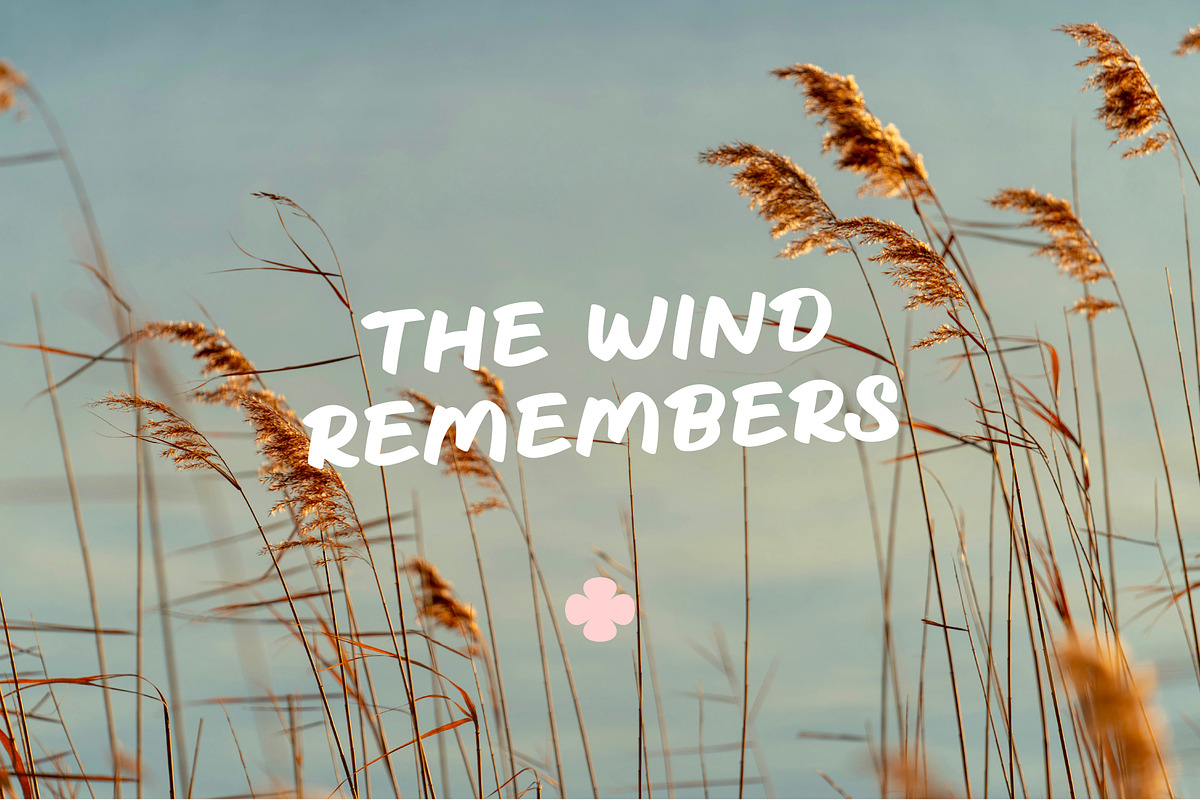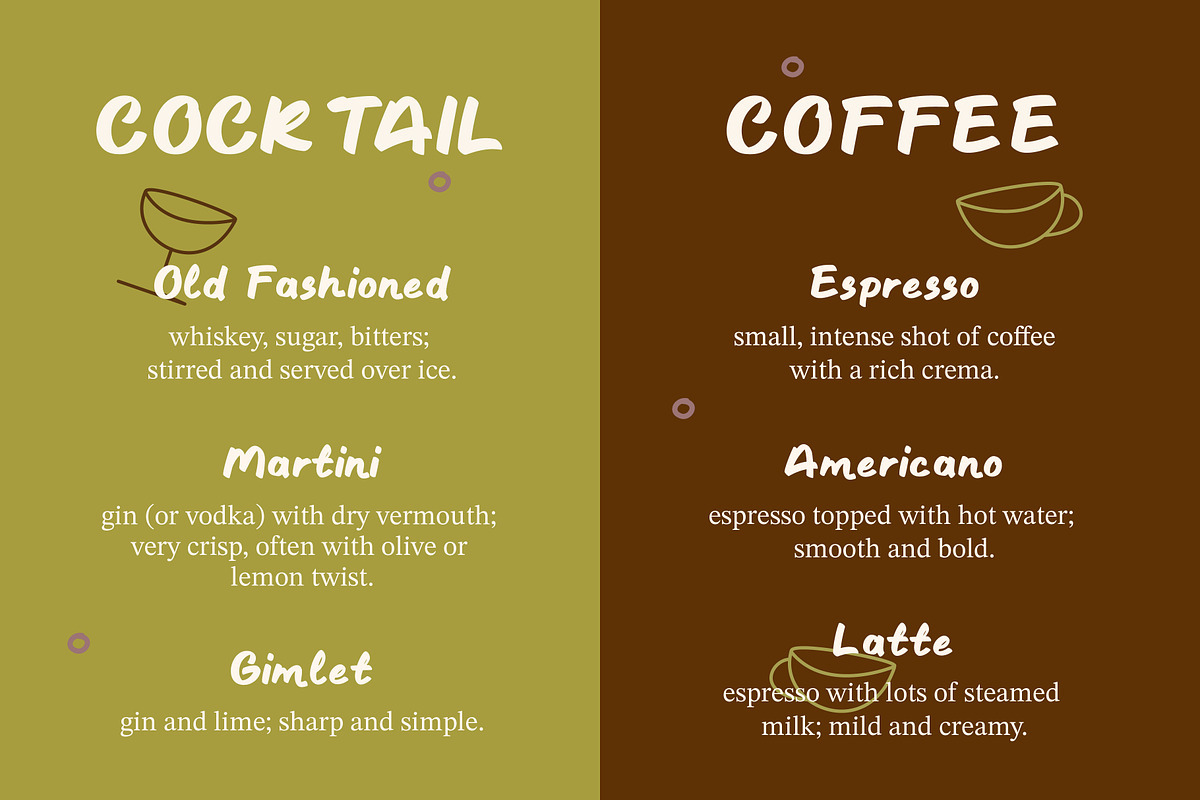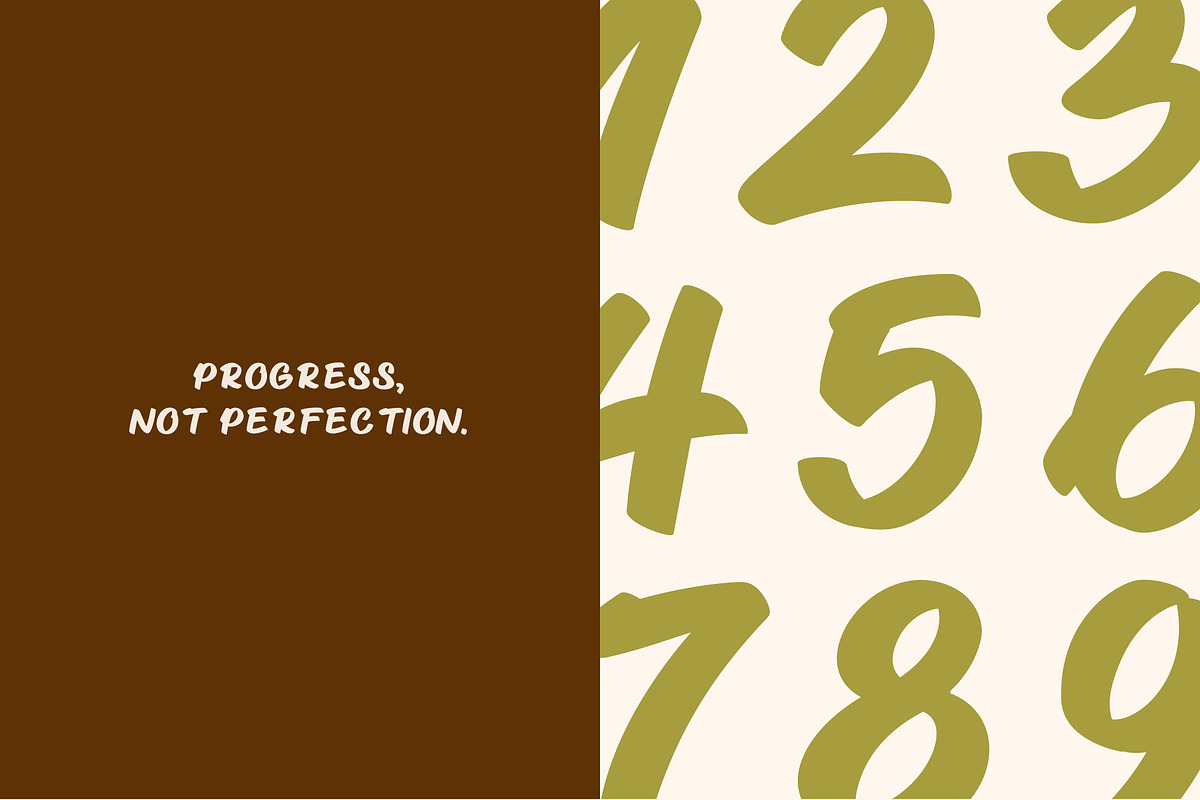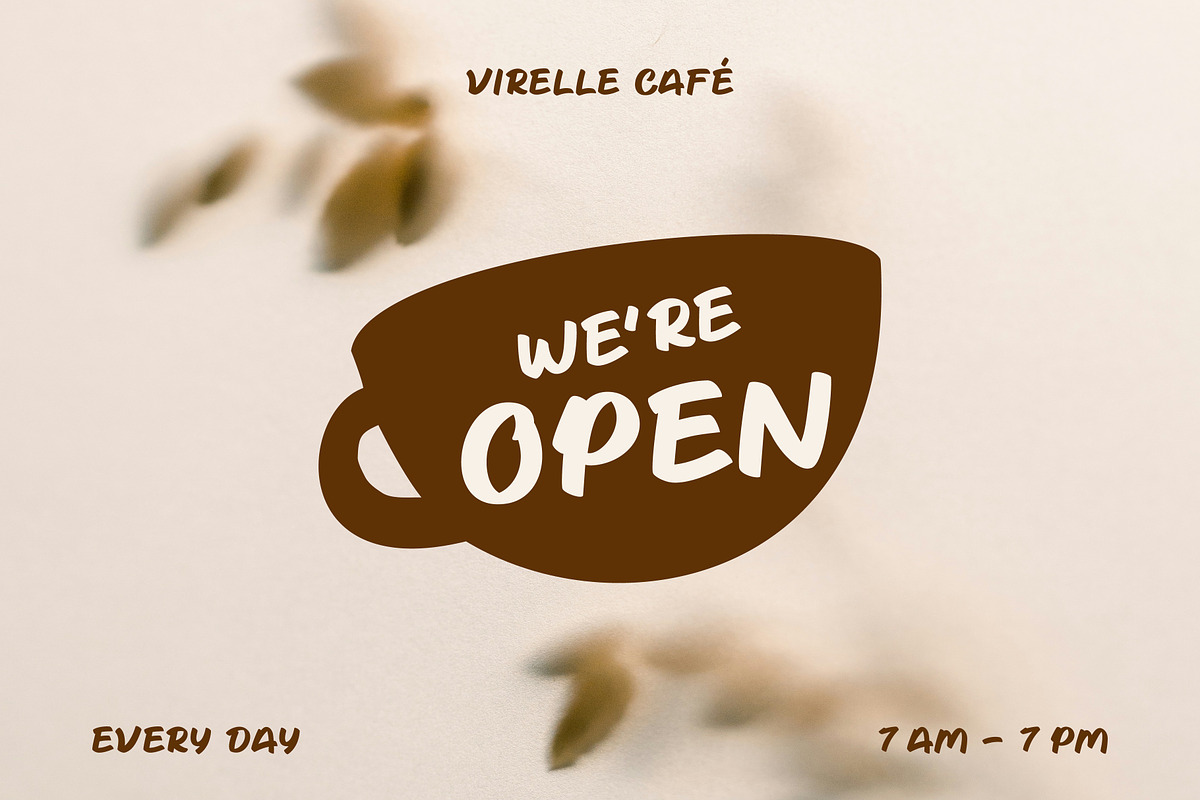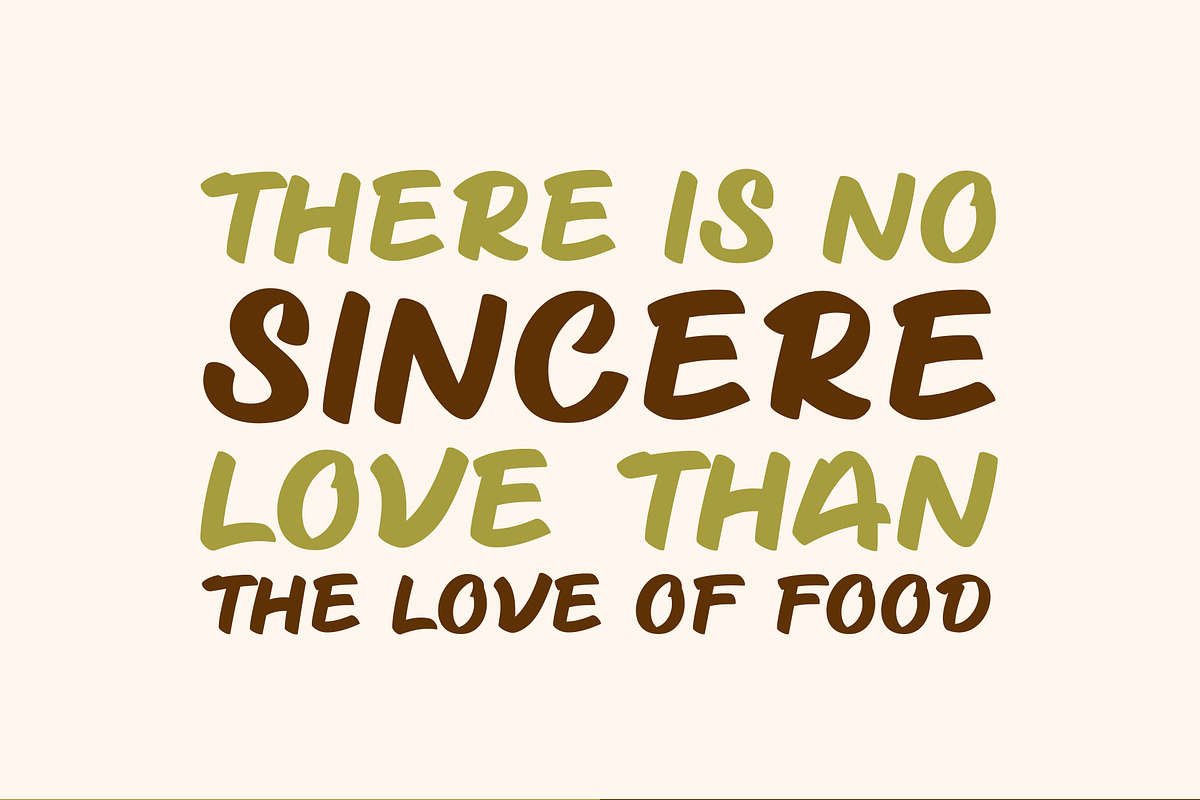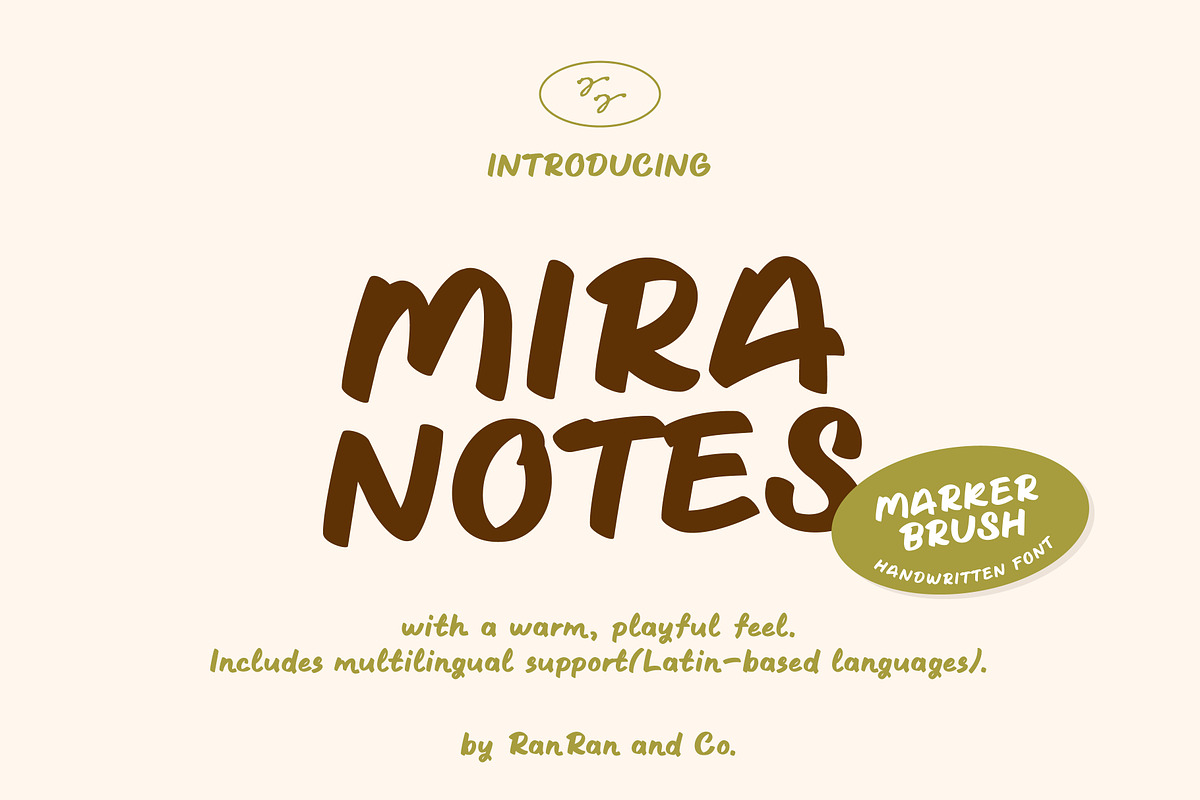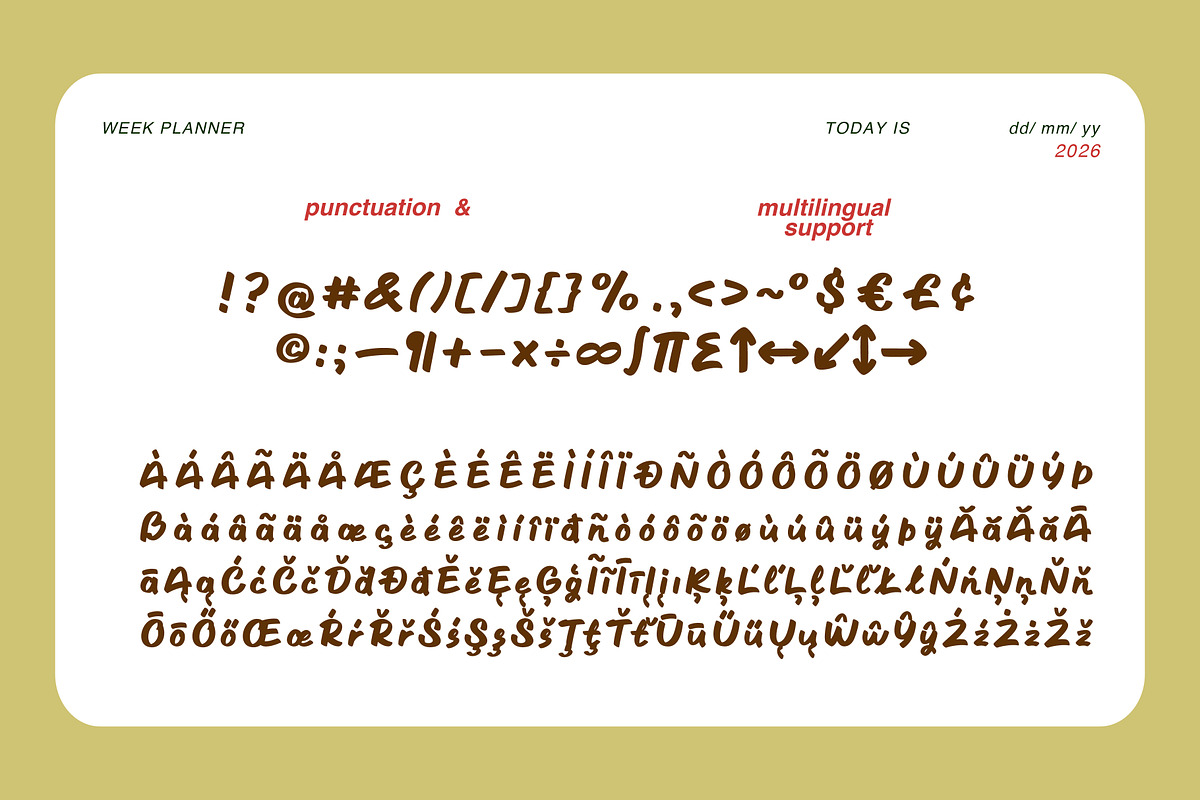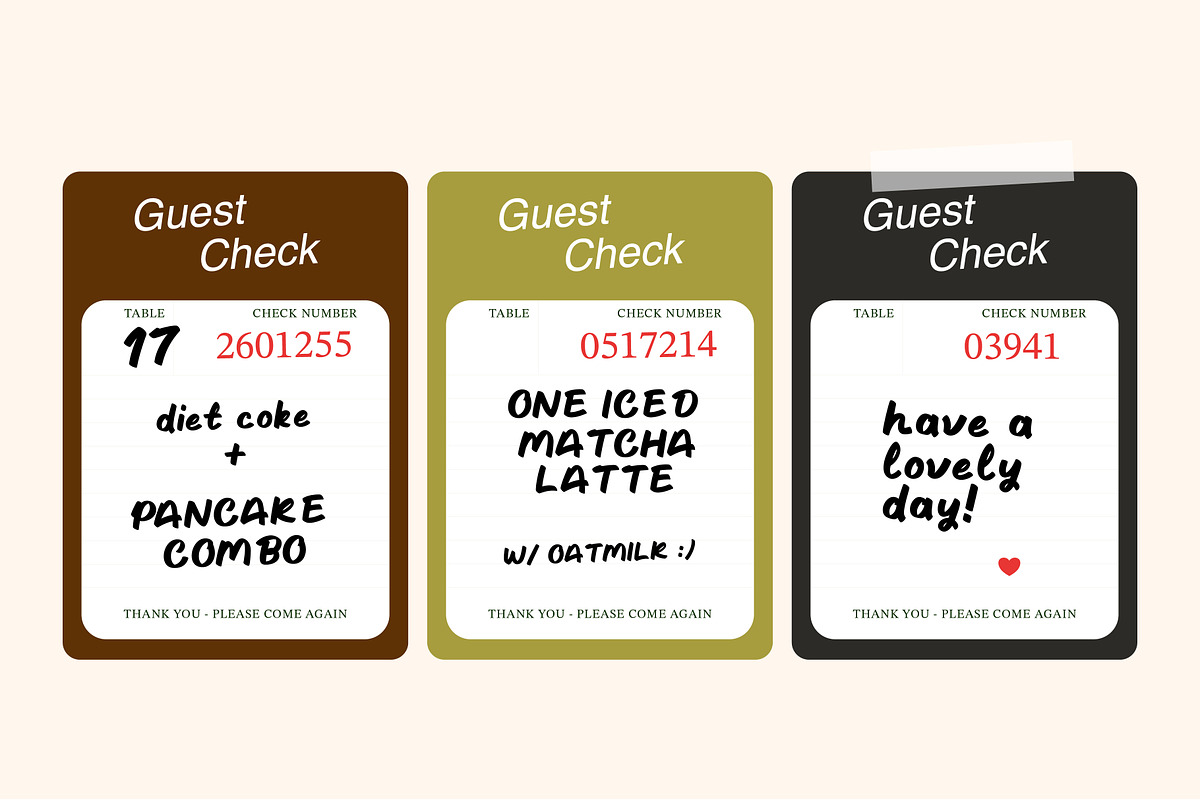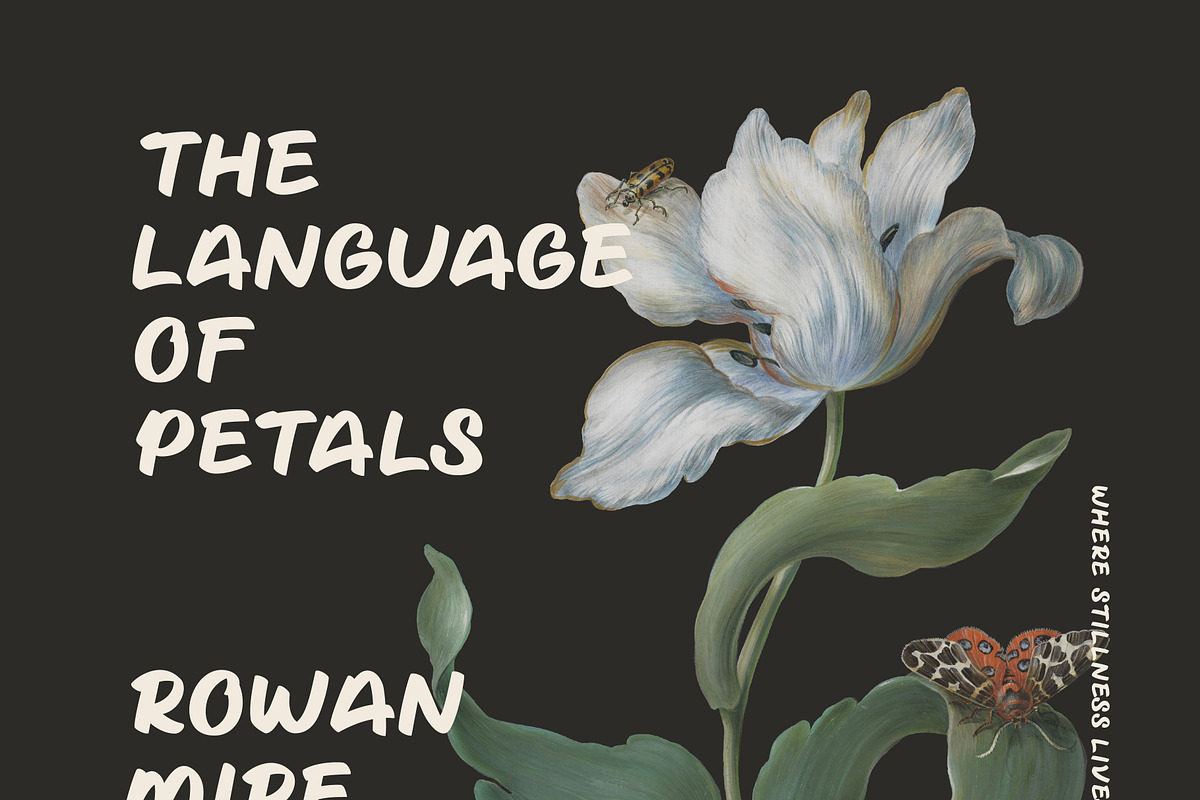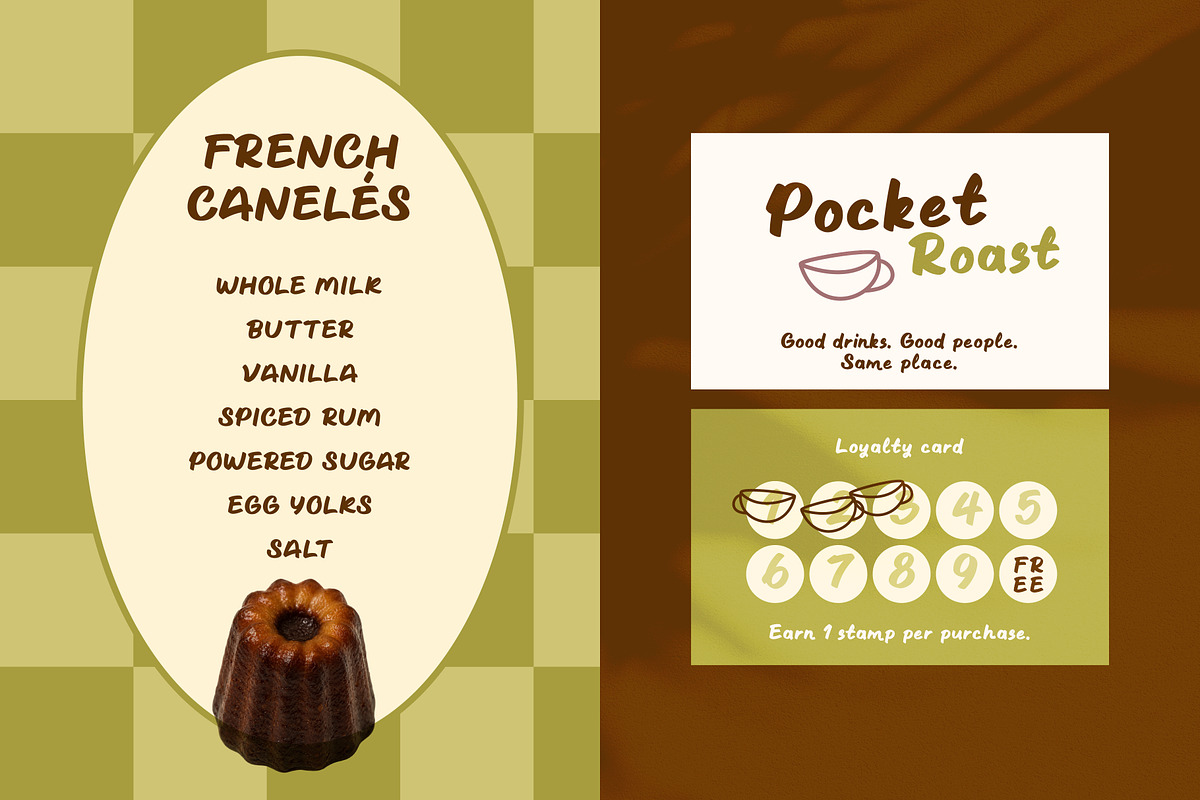
Mira Notes
Mira Notes — Marker Brush Handwritten Font
A cozy, playful marker-brush font for planners, café menus, labels, and social graphics—made to bring a warm handmade feel to your designs. Perfect with minimalist layouts, simple icons, and soft illustrations. Includes multilingual support (Latin-based languages).